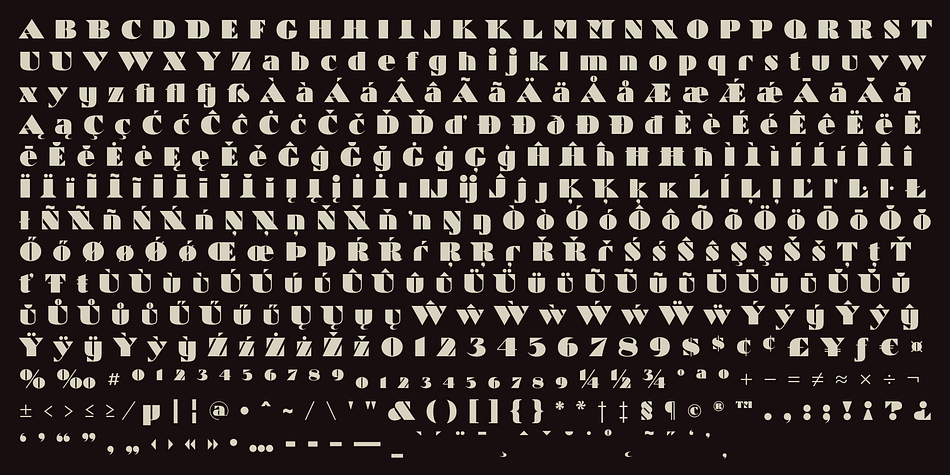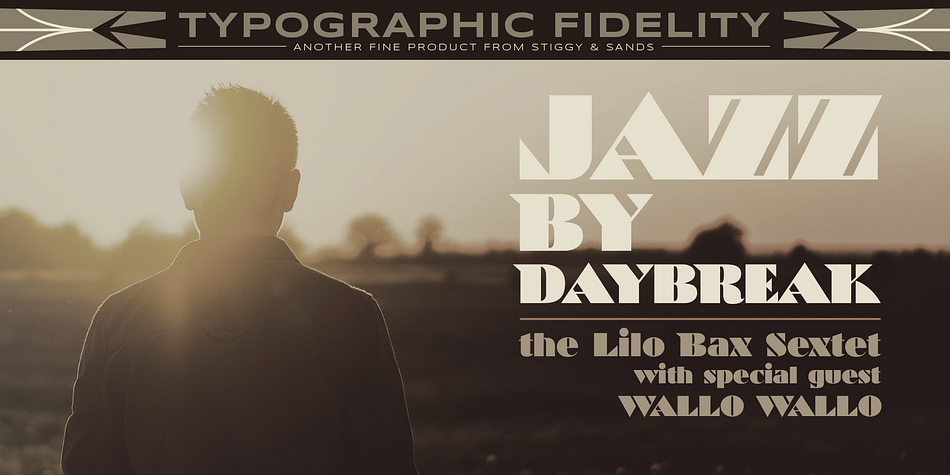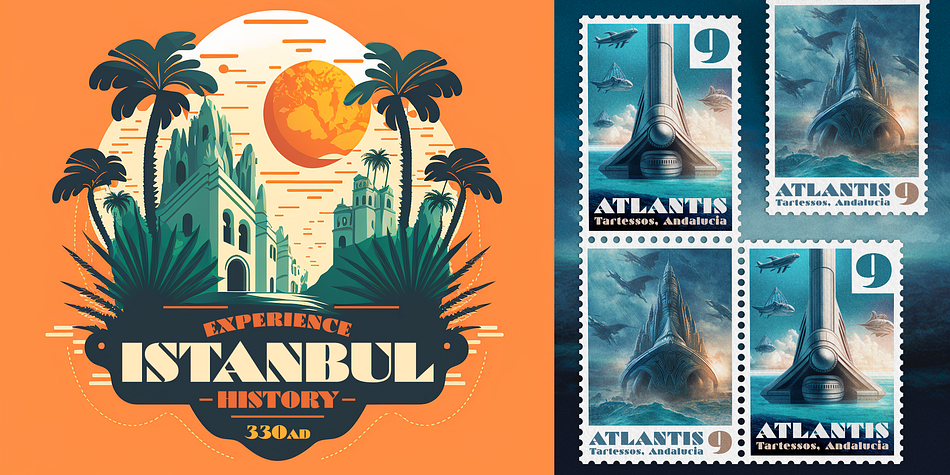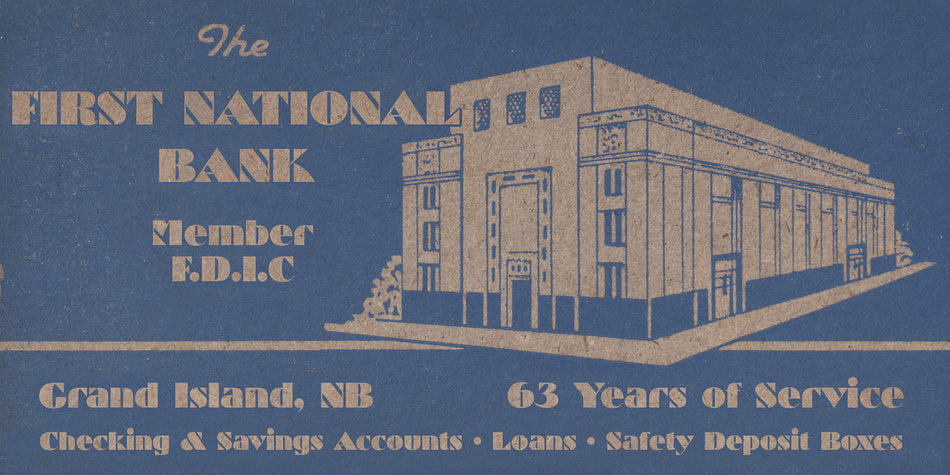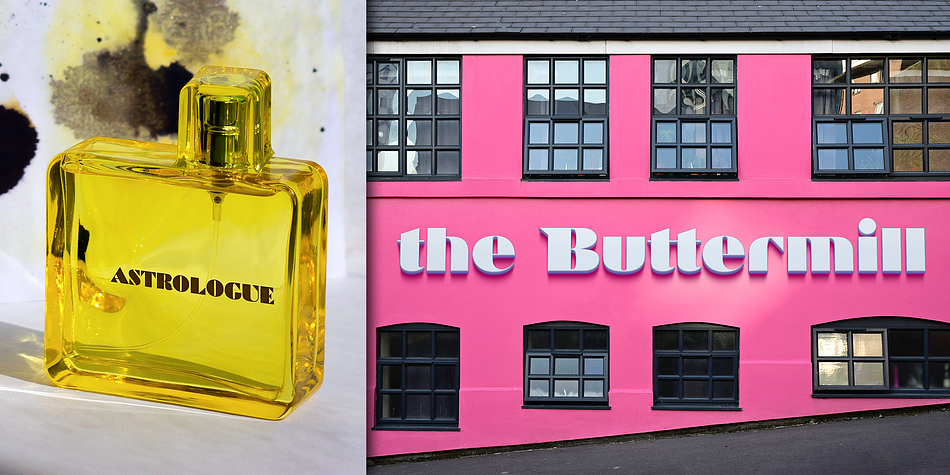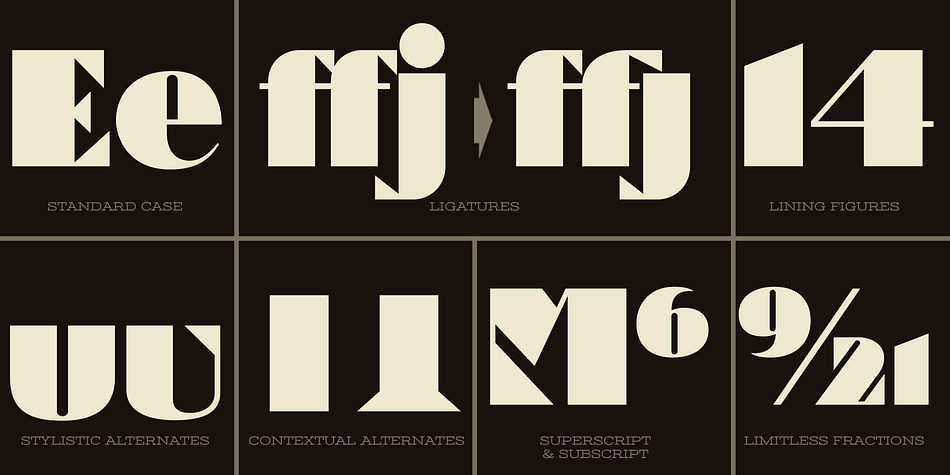
Designed by Brian J. Bonislawsky, Jim Lyles and John W. Zimmerman, Artisinal is an art deco font published by Stiggy & Sands.
Historical Art Deco typestyle finds new legs as a Revival
Artisinal, not to be confused with the term artisanal, is our revival of the Art Deco typeface known as Cubist Bold, by John W. Zimmerman for Barnhardt Bros. & Spindler in 1929, breathes new life into a classic. The original metal cast typeface was designed without a lowercase, as well as some wedge serif capitals that made for not always perfect pairings.
We’ve created a lowercase that blends well with the original design to give the typeface more usability. We’ve also created a fully sans version of the capitals as the default set, and moved the original wedge serif capital styles to a contextual alternates feature. We’ve also created a few stylistic alternates for lowercase characters like the u and y and their accented styles.
Opentype features include:
- Full set of Inferiors and Superiors for limitless fractions.
- A Standard lining figure set.
- A collection of basic f Ligatures.
- Stylistic Alternates for variations of several characters such as u and y.
- Contextual Alternates for the original wedge variations of capitals that will mix in where appropriate.
Approx. 448 Character Glyph Set: Croft comes with a glyphset that includes standard & punctuation, international language support, and additional features